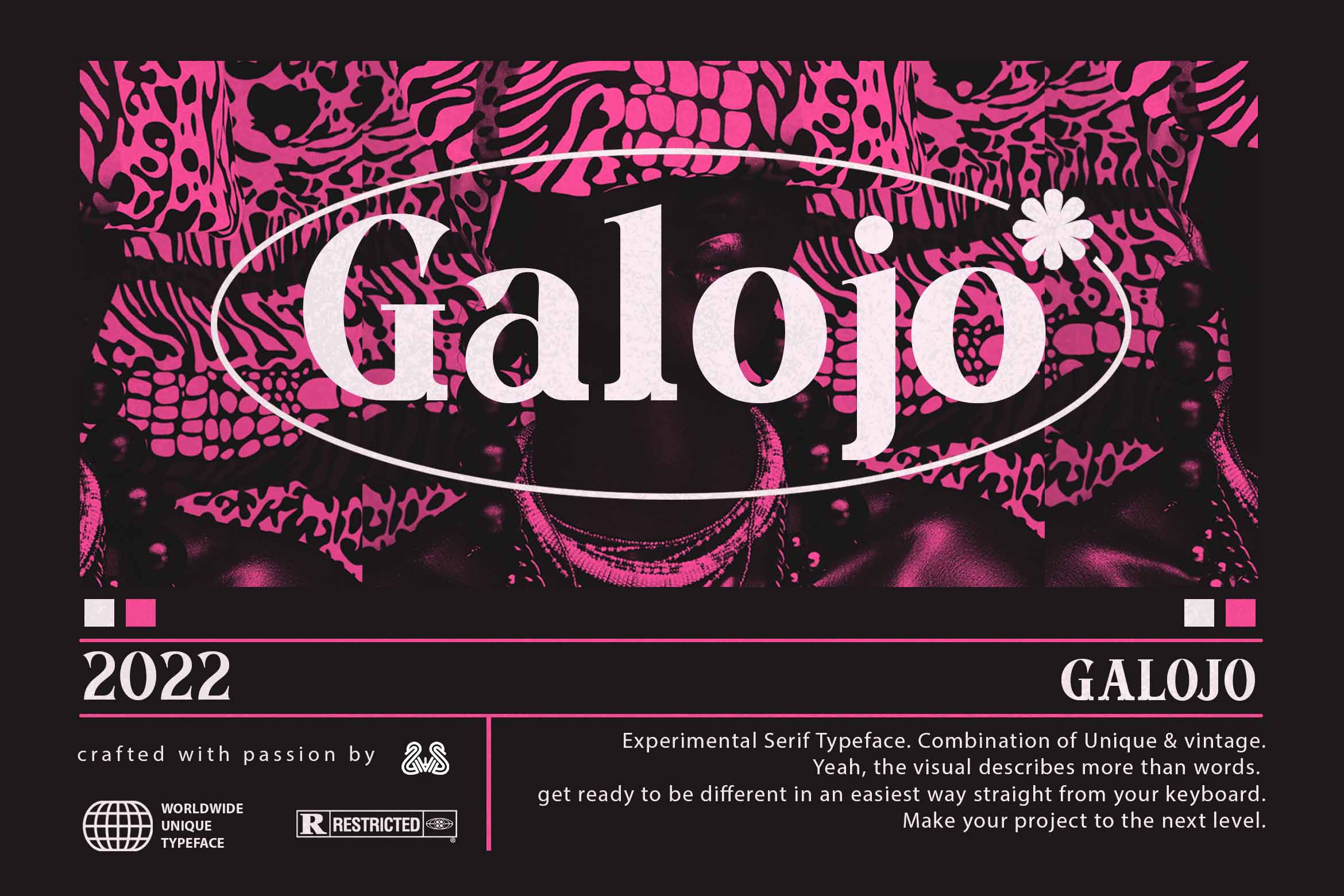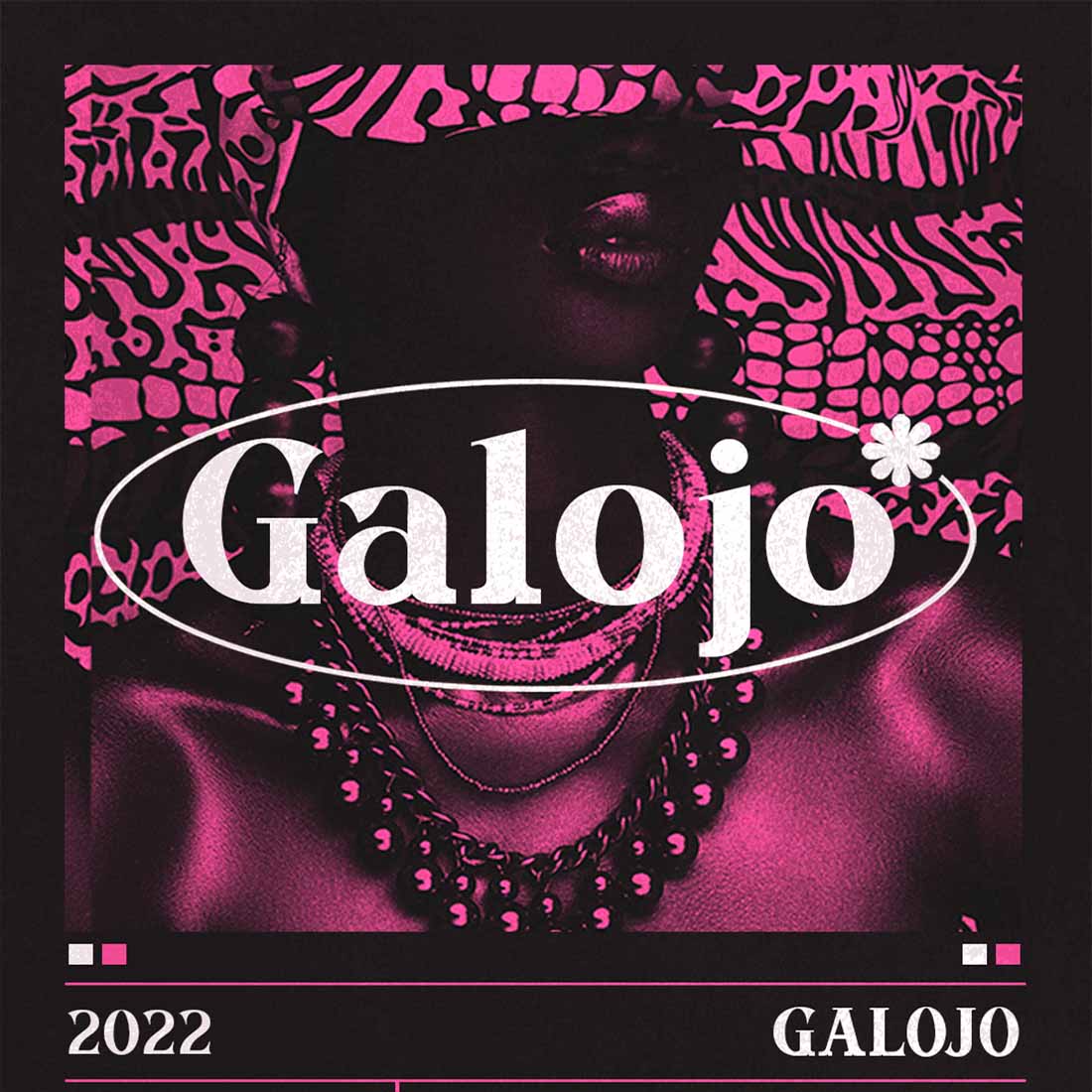
Galojo – Vintage Serif Typeface. Unique Typeface Font Galojo for your personal or business purpose come with 4 different style, (Thin,Regular,Bold,Black)